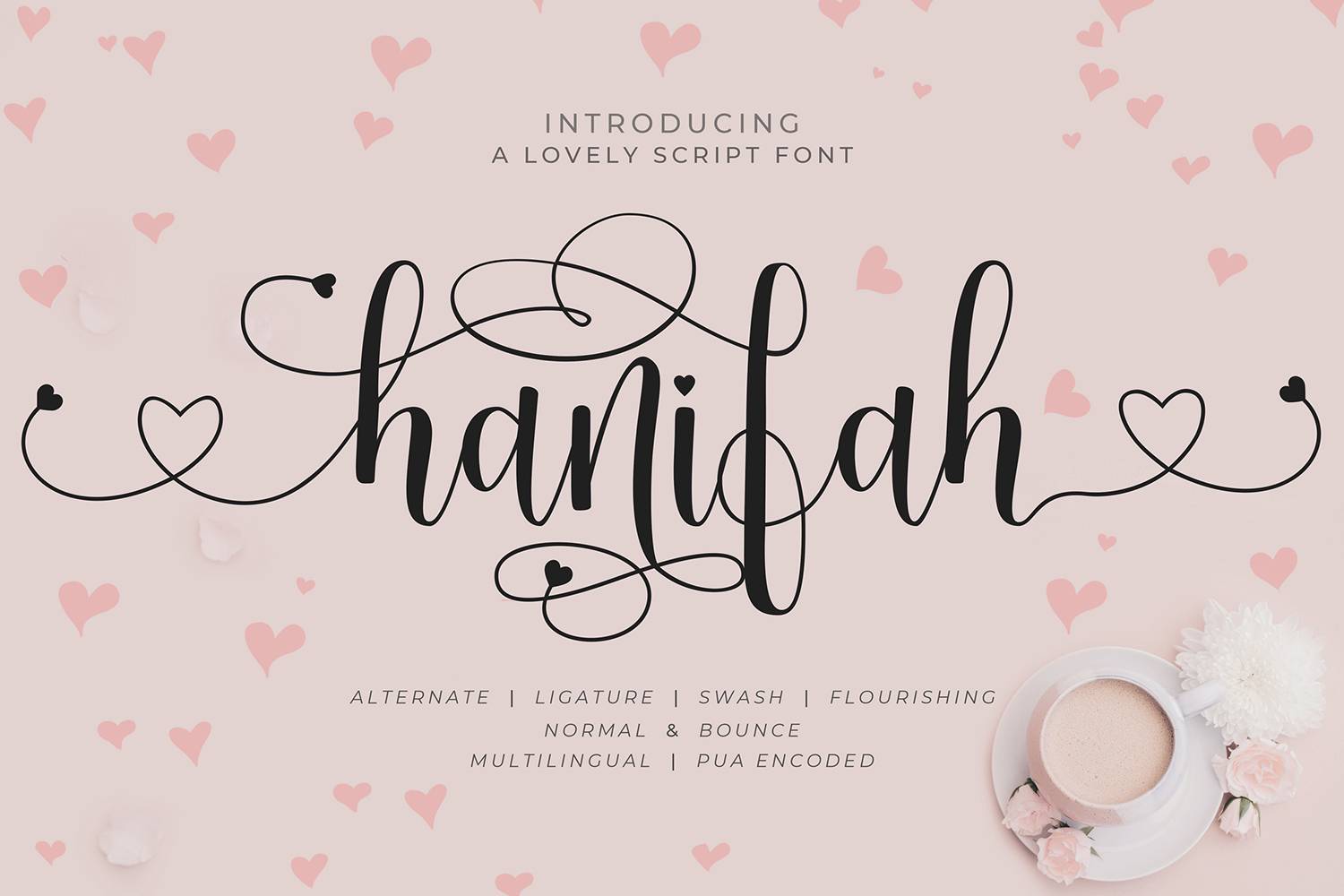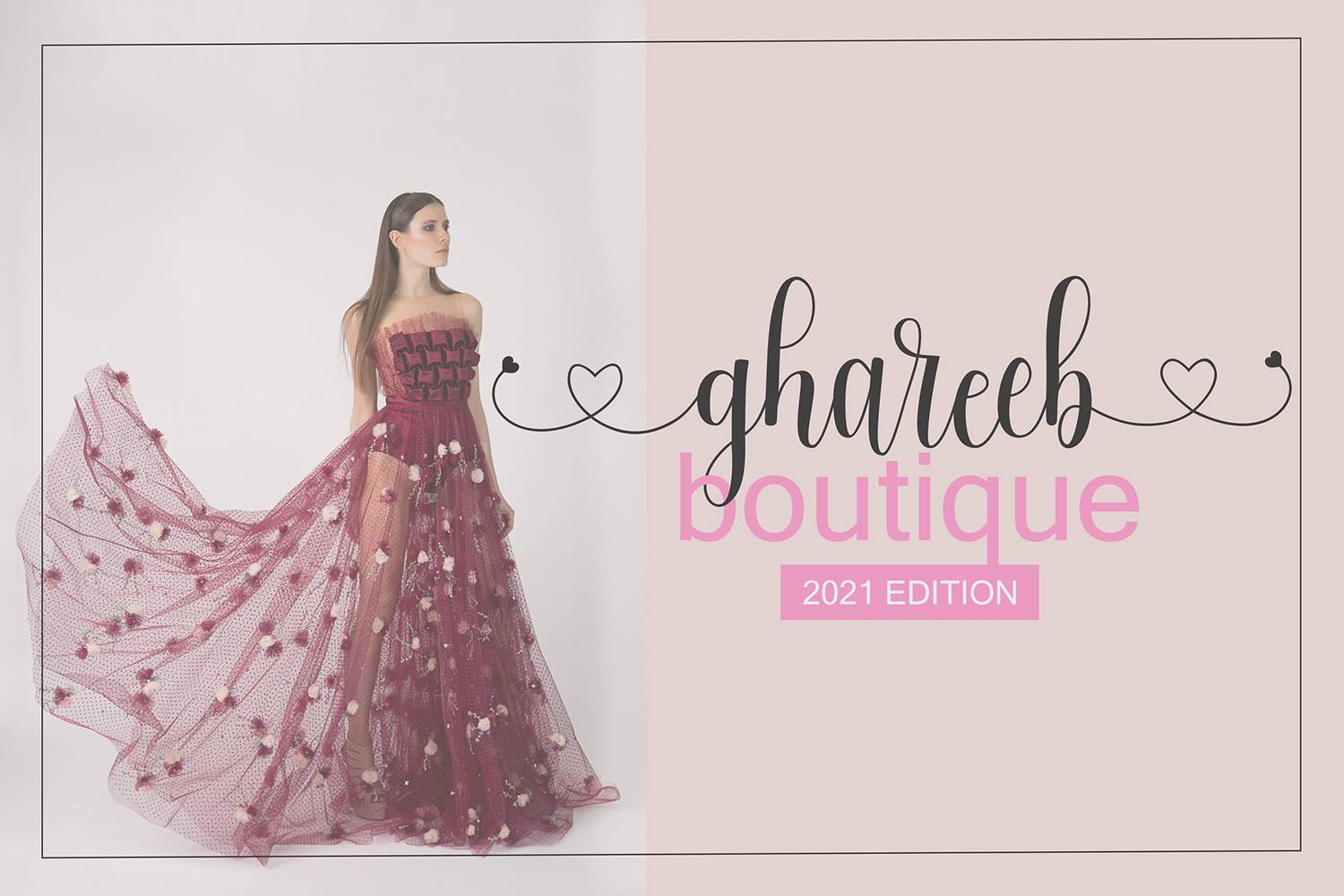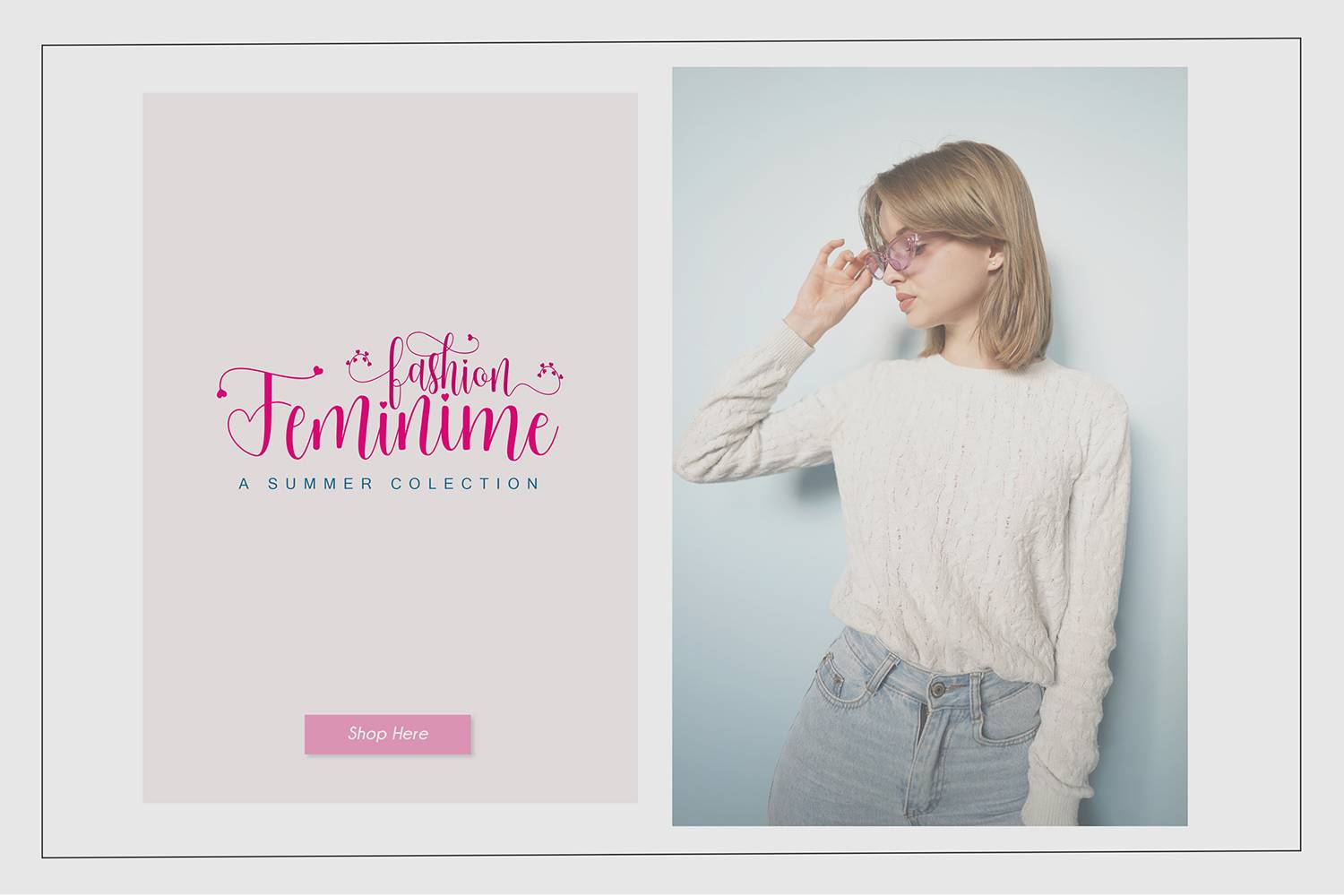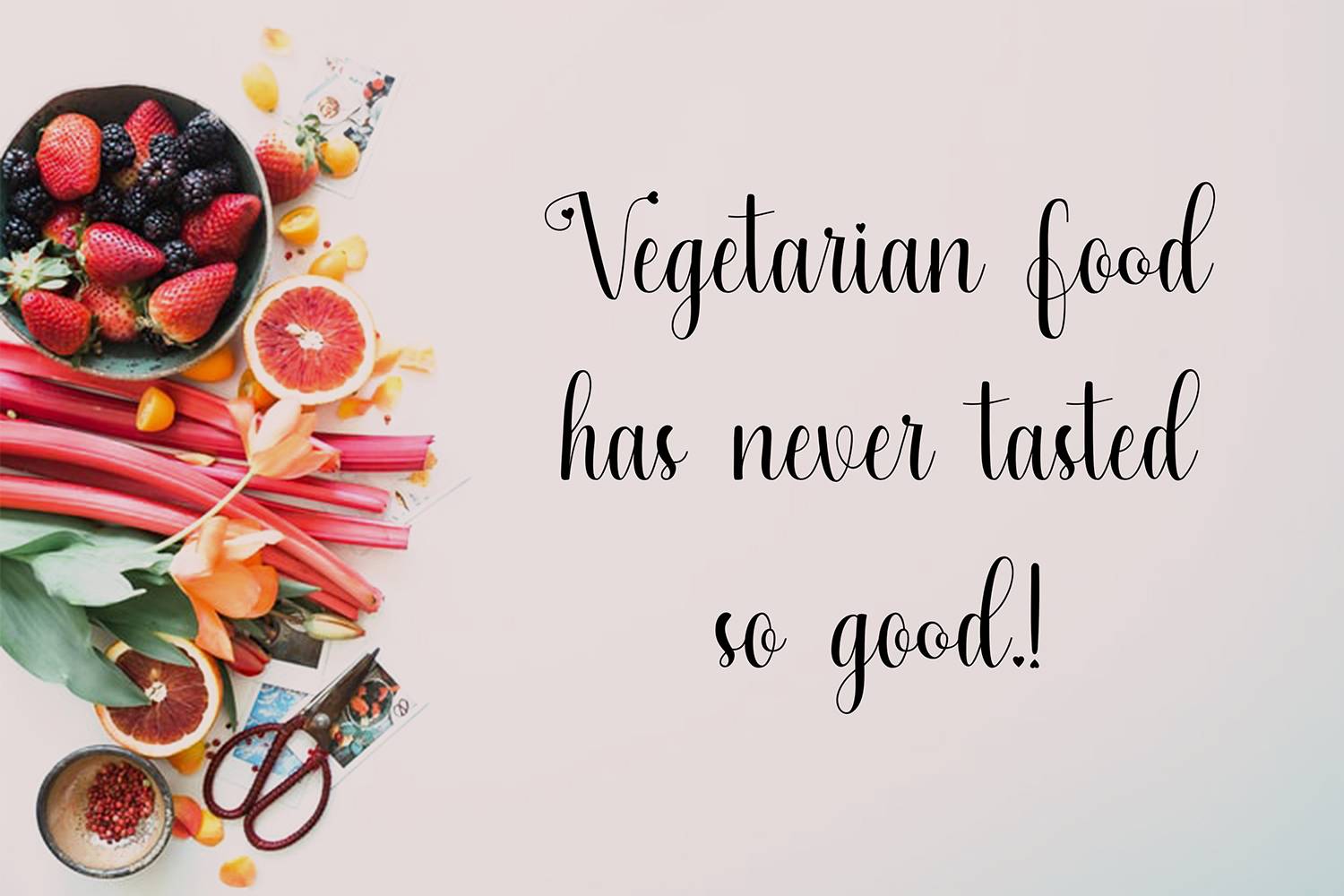
Hanifah is a delicate script font that blends elegant, flowing strokes with playful, decorative swirls, especially prominent in its uppercase letters. Its slender, tall characters create a light and airy feel, making it perfect for invitations, branding, and projects that need a whimsical yet refined touch. With its graceful style and unique embellishments, Hanifah conveys creativity and charm, ideal for fashion, beauty, or feminine-themed designs.
Hanifah Font